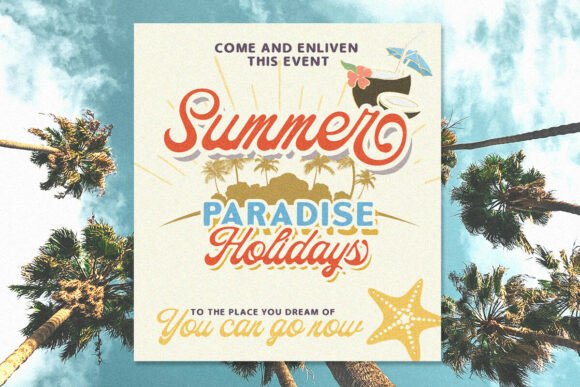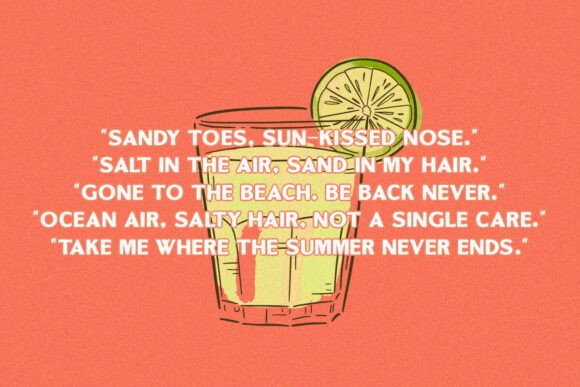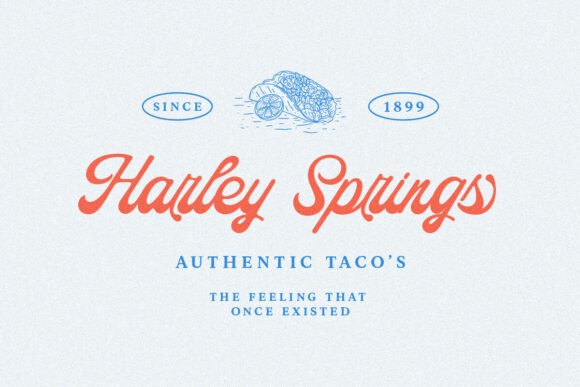
Introduction to Midnight Pleasure Script Font
Midnight Pleasure is a retro display font that blends bold sans-serif confidence with a smooth, elegant script, creating a striking balance between vintage charm and modern precision.
Its clean geometric sans delivers impact in headlines, while the flowing script offers smooth curves and a nostalgic, handcrafted feel that enhances branding, packaging, posters, and digital layouts The careful stroke contrasts, harmonious proportions, and fluid connections make it highly versatile — perfect for designers looking for a font that exudes both personality and professional polish.
Key Features of Midnight Pleasure Script Font
Why Choose Midnight Pleasure Script Font?
Midnight Pleasure Script Font offers exceptional quality and versatility, making it a valuable addition to your design toolkit. Whether you’re creating for personal projects or commercial use, Midnight Pleasure Script Font delivers professional results.